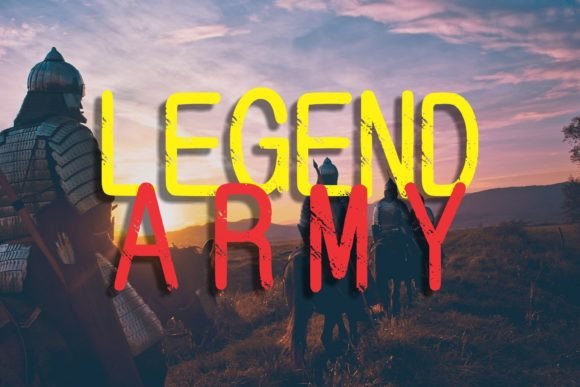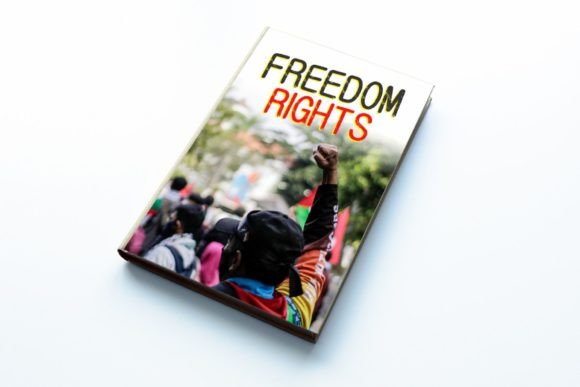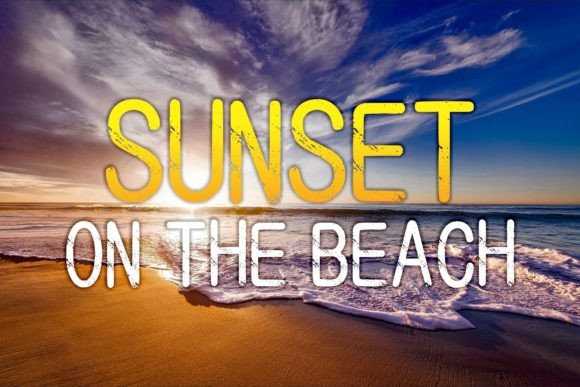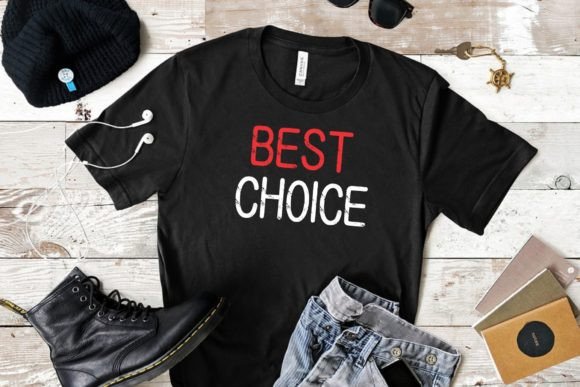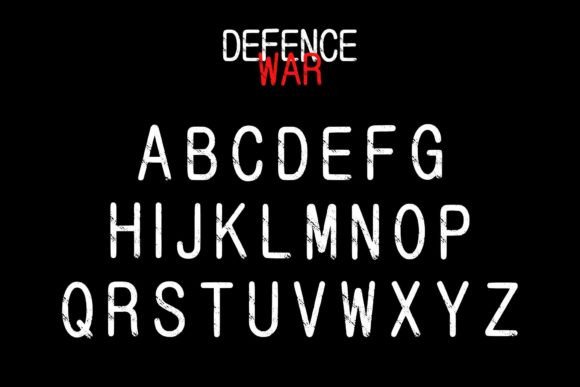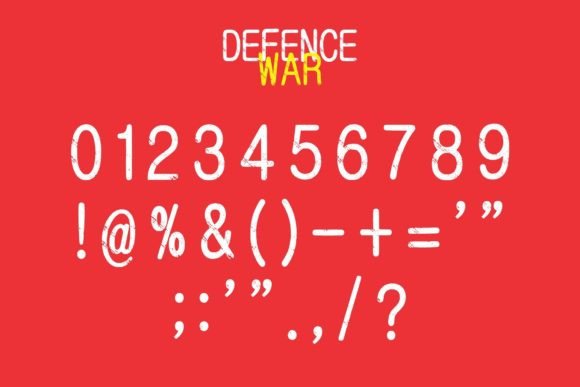
Introducing Defence War Font: Elevate Your Designs with a Cool and Elegant Grunge Display Font
In the world of design, fonts play a crucial role in conveying the tone and aesthetic of a project. Whether you’re working on a branding campaign, a website, or a craft project, the right font can make all the difference. If you’re looking for a font that exudes coolness and elegance, look no further than Defence War Font. This grunge display font is an incredible asset to any designer’s font library, and we’re excited to dive into its features and benefits.
What is Defence War Font?
Defence War Font is a unique and stylish grunge display font that is perfect for designers and crafters looking to add a touch of sophistication to their projects. Its cool and elegant design makes it versatile enough to be used on a wide range of topics, from bold statements to subtle expressions. The font’s grunge texture adds a layer of depth and character, giving it a distinctive look that sets it apart from other fonts.
Key Features of Defence War Font
- Cool and Elegant Design: Defence War Font boasts a sleek and refined design that is perfect for creating stunning visual effects.
- Grunge Texture: The font’s grunge texture adds a layer of depth and character, giving it a unique and distinctive look.
- Display Font: Defence War Font is specifically designed as a display font, making it perfect for headlines, titles, and other attention-grabbing elements.
- Versatile: The font’s versatility makes it suitable for a wide range of projects, from branding and advertising to crafting and DIY projects.
Benefits of Using Defence War Font
So, why should you choose Defence War Font for your next project? Here are just a few benefits of using this amazing font:
- Elevate Your Designs: Defence War Font has the potential to elevate any creation, adding a touch of sophistication and elegance.
- Stand Out from the Crowd: The font’s unique grunge texture and cool design make it a standout choice for designers looking to create something distinctive.
- Save Time: With Defence War Font, you can create stunning visual effects in no time, saving you hours of design work.
- Perfect for Crafters: The font’s versatility makes it perfect for crafters and DIY enthusiasts looking to add a professional touch to their projects.
How to Use Defence War Font
Using Defence War Font is easy! Here are a few tips to get you started:
- Pair it with Other Fonts: Defence War Font pairs well with other fonts, making it easy to create stunning visual effects.
- Experiment with Colors: The font’s grunge texture looks great in a variety of colors, so don’t be afraid to experiment and find the perfect hue.
- Use it for Headlines and Titles: Defence War Font is specifically designed as a display font, making it perfect for headlines and titles.